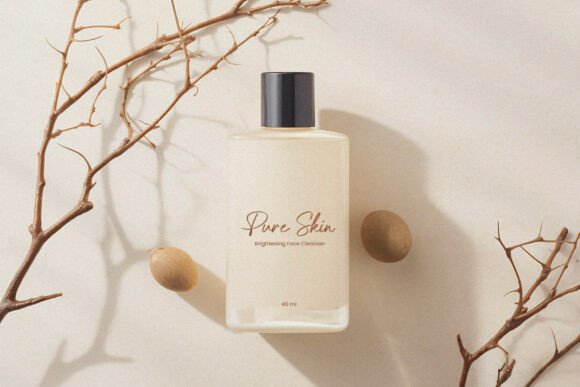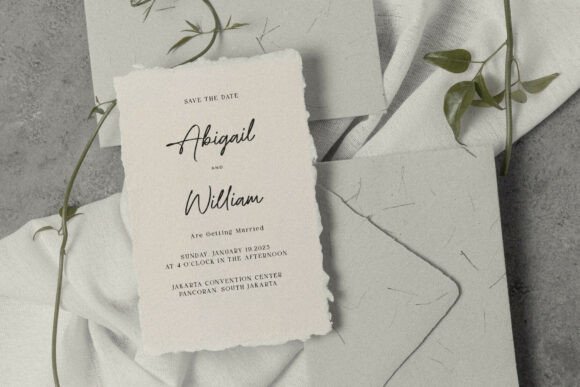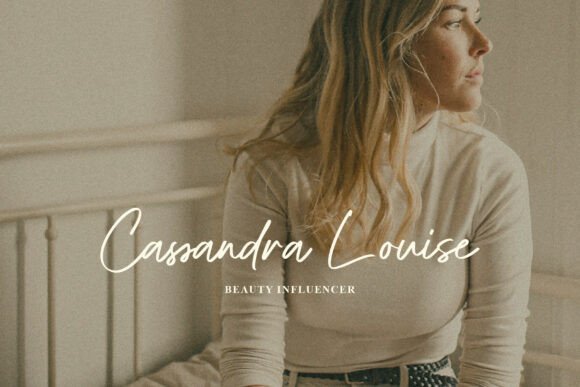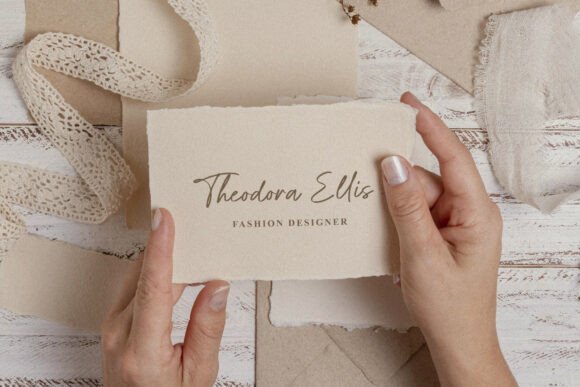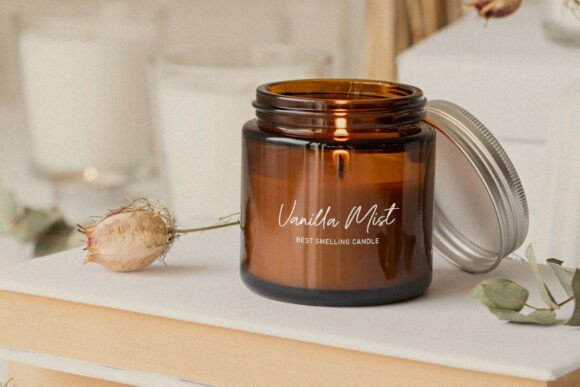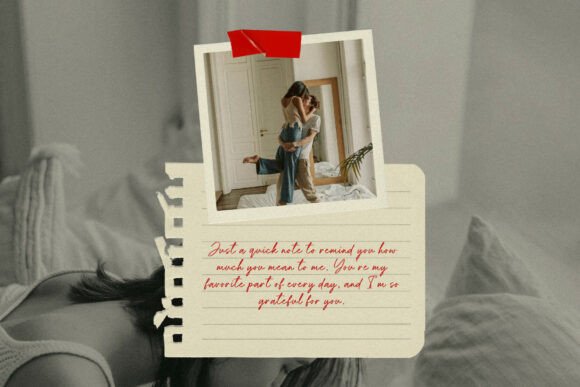
Beyond Dreams Font: Elevate Your Designs with Elegance and Personality
In the world of typography, a font can make or break the aesthetic of a design project. For crafters, designers, and creatives seeking to infuse their work with a touch of sophistication and warmth, Beyond Dreams Font is an exceptional choice. This modern signature-style handwritten typeface is meticulously designed to bring elegance, personality, and a human touch to a wide array of creative endeavors.
The Essence of Beyond Dreams Font
Beyond Dreams is not just a font; it’s an experience. It embodies the perfect blend of modernity and tradition, offering a fresh yet timeless appeal. The font’s design focuses on smooth curves, natural strokes, and stylish ligatures, which collectively contribute to its unique and captivating appearance. Whether you’re working on a branding project, a wedding invitation, a packaging design, or a digital interface, Beyond Dreams Font can elevate your work with its distinctive charm.
Key Features of Beyond Dreams Font
- Smooth Curves and Natural Strokes: The font boasts fluid, smooth curves and strokes that mimic natural handwriting, providing a genuine and organic feel to your designs.
- Stylish Ligatures: With carefully crafted ligatures, Beyond Dreams Font offers a more connected and flowing script, enhancing readability and visual appeal.
- Elegance and Warmth: The typeface exudes a sense of elegance and warmth, making it perfect for projects that require a personal and sophisticated touch.
- Clean and Professional Look: Despite its handwritten nature, the font maintains a clean and professional appearance, suitable for a variety of applications, from luxury branding to personal stationery.
Applications of Beyond Dreams Font
The versatility of Beyond Dreams Font makes it an invaluable asset for designers and crafters across various fields. Here are some of the many applications where this font truly shines:
- Branding and Logo Design: Use Beyond Dreams to create memorable and elegant brand identities that stand out.
- Wedding and Event Stationery: Add a touch of sophistication and romance to wedding invitations, thank you cards, and event signage.
- Packaging Design: Elevate product packaging with a font that communicates luxury, quality, and personality.
- Digital Design: Enhance user interfaces, mobile apps, and websites with a typeface that offers both readability and style.
- Personal Projects: Whether it’s a journal, a craft project, or personal branding, Beyond Dreams Font can add a unique and personal flair.
Why Choose Beyond Dreams Font?
In a sea of typefaces, Beyond Dreams Font stands out for several reasons:
- Unique Personality: It offers a distinct character that can help your designs stand out.
- Versatility: Suitable for a wide range of projects, from digital to print.
- Ease of Use: Designed to be user-friendly, making it accessible for both beginners and professionals.
- Support for Multiple Languages: Beyond Dreams Font supports multiple languages, making it a great choice for global projects.
Beyond Dreams Font is more than just a typeface; it’s a tool for creativity and expression. Its elegant design, combined with its versatility and user-friendly nature, makes it an excellent choice for designers and crafters looking to add a personal and sophisticated touch to their work. With Beyond Dreams, you can bring your creative visions to life in a way that’s both memorable and impactful. Whether you’re aiming for elegance, warmth, or personality in your designs, Beyond Dreams Font is an asset that can help you achieve your goals with style.